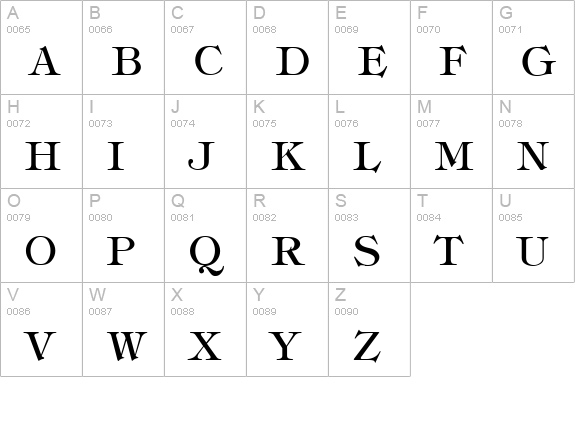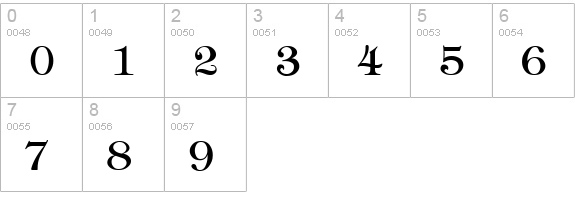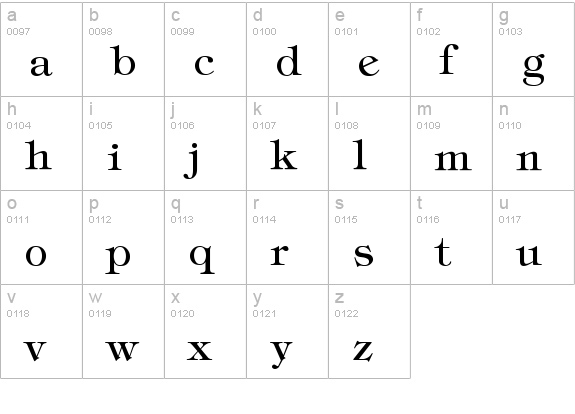
Tiffany-Normal is the standard, neutral variant in the Tiffany typeface family \xE2\x80\x94 well suited to general body text, paragraphs, and standard typographic work.
Introducing Tiffany-Normal, a beautifully crafted font that effortlessly combines elegance and simplicity. With its refined letterforms and graceful curves, this font exudes a timeless charm that is sure to elevate any design project. Tiffany-Normal is the epitome of versatility, making it perfect for a wide range of applications. Whether you are creating an eye-catching logo, elegant invitations, or professional branding materials, this font will add a touch of sophistication to your design. But what makes Tiffany-Normal even more appealing is that it is freely available to download at FontsMarket.com. Yes, you read that right! This stunning font can be yours without any cost, allowing you to create stunning designs without breaking the bank. With its extensive character set and multiple weights, Tiffany-Normal offers endless possibilities for customization. Whether you prefer a bold and impactful look or a more delicate and refined style, this font has you covered. Designed with attention to detail, Tiffany-Normal ensures legibility and readability across various platforms and mediums. Its clean and crisp lines make it a perfect choice for both print and digital projects, ensuring your message is conveyed with clarity and style. So why wait? Go ahead and experience the beauty and versatility of Tiffany-Normal. Download it for free at FontsMarket.com and unlock a world of design possibilities. Elevate your creations with this exquisite font and captivate your audience with its timeless elegance.